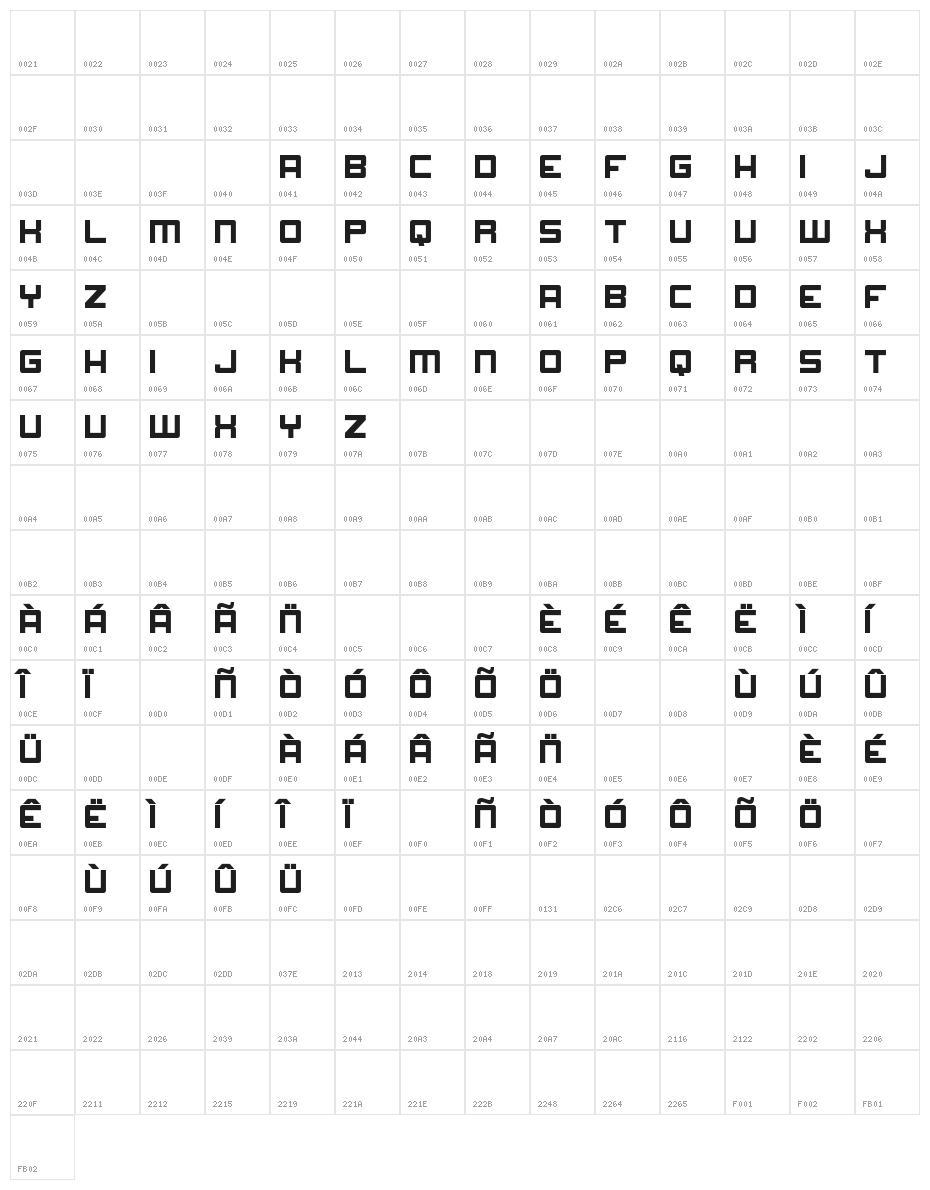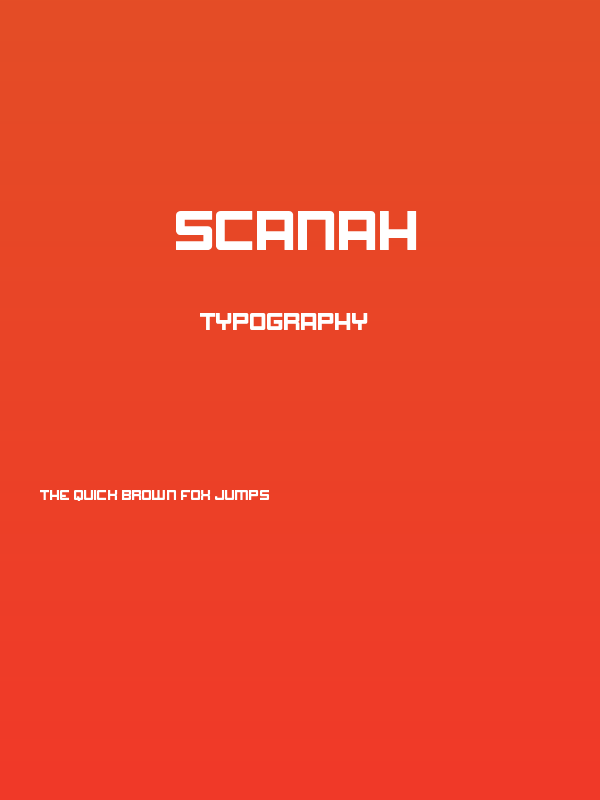
Scanah Font
Scanah Description
This font features a bold and geometric design with a strong, modern aesthetic. The characters are constructed with uniform stroke widths, creating a cohesive and structured appearance. The angular and blocky nature of the letters gives it a futuristic and tech-inspired look. The uppercase letters are particularly striking, with sharp edges and a consistent height that enhances readability. The font's design is clean and uncluttered, making it suitable for various digital and print applications. Its distinctive style is ideal for projects that require a contemporary and assertive typeface.
Proposed ProjectsIdeal for technology branding, digital interfaces, video game titles, and modern advertising campaigns.